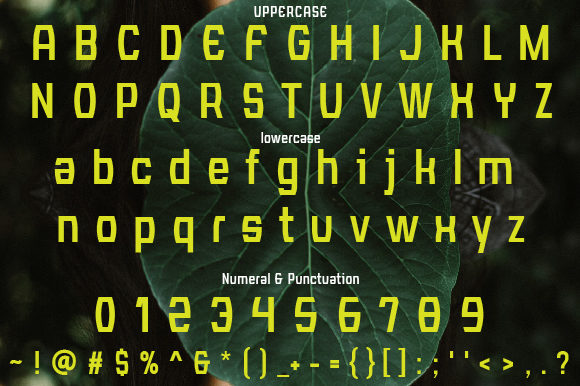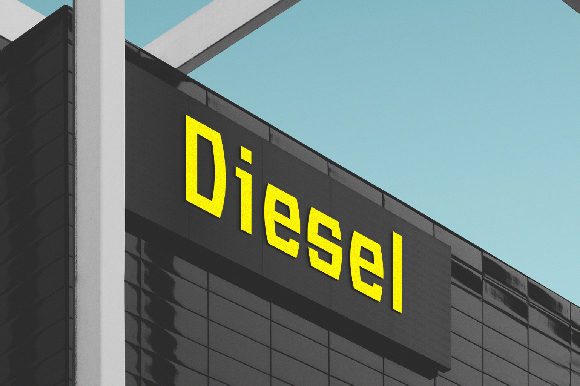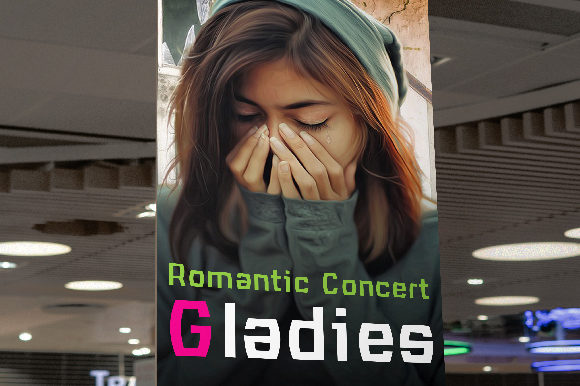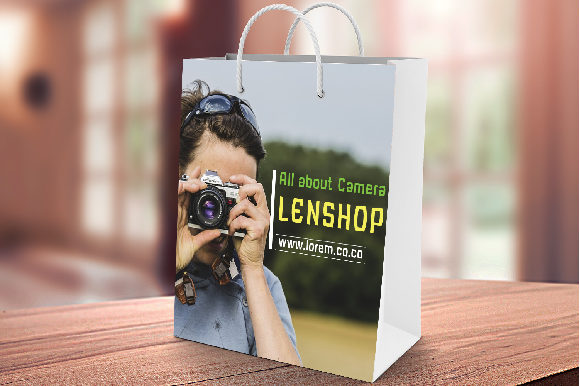
Discover the Bold and Fresh Calista Font: Elevate Your Designs with Style
In the world of typography, a good font can make all the difference in creating a visually stunning design. If you’re a designer or crafter looking for a unique and bold typeface to add a striking touch to your projects, look no further than the Calista Font. This fresh and modern font is perfect for a variety of purposes, including covers, magazines, t-shirts, posters, billboards, and much more!
The Calista Font: A Bold and Eye-Catching Typeface
The Calista Font boasts a bold and eye-catching design that is sure to turn heads. Its unique style and fresh aesthetic make it an excellent choice for designers who want to add a touch of sophistication and elegance to their work. Whether you’re creating a logo, brochure, or social media graphic, the Calista Font is sure to make a lasting impression.
Key Features of the Calista Font
- Bold and striking design: The Calista Font features a bold and striking design that is perfect for making a statement.
- Fresh and modern aesthetic: This font has a fresh and modern aesthetic that is sure to appeal to designers who want to create visually stunning designs.
- Versatile: The Calista Font is suitable for a variety of purposes, including covers, magazines, t-shirts, posters, billboards, and much more.
- Easy to read: Despite its bold design, the Calista Font is easy to read, making it perfect for body text and headlines.
Uses for the Calista Font
The Calista Font is an incredibly versatile typeface that can be used for a wide range of design projects. Here are some ideas to get you started:
- Covers and magazines: Use the Calista Font to create eye-catching covers and magazine layouts that are sure to stand out on newsstands.
- T-shirts and apparel: The Calista Font is perfect for creating bold and stylish t-shirts and apparel that are sure to turn heads.
- Posters and billboards: Use the Calista Font to create large-scale posters and billboards that are sure to grab attention.
- Logos and branding: The Calista Font can be used to create unique and memorable logos and branding materials that are sure to make a lasting impression.
Why Choose the Calista Font?
With so many fonts to choose from, why should you choose the Calista Font? Here are just a few reasons:
- Unique and distinctive design: The Calista Font has a unique and distinctive design that is sure to set your designs apart from the crowd.
- High-quality: The Calista Font is a high-quality typeface that is designed to deliver exceptional results.
- Easy to use: The Calista Font is easy to use and can be easily integrated into your design workflow.
Whether you’re a seasoned designer or just starting out, the Calista Font is an excellent choice for anyone looking to add a touch of style and sophistication to their work. So go ahead, get creative, and see what amazing designs you can create with the Calista Font!